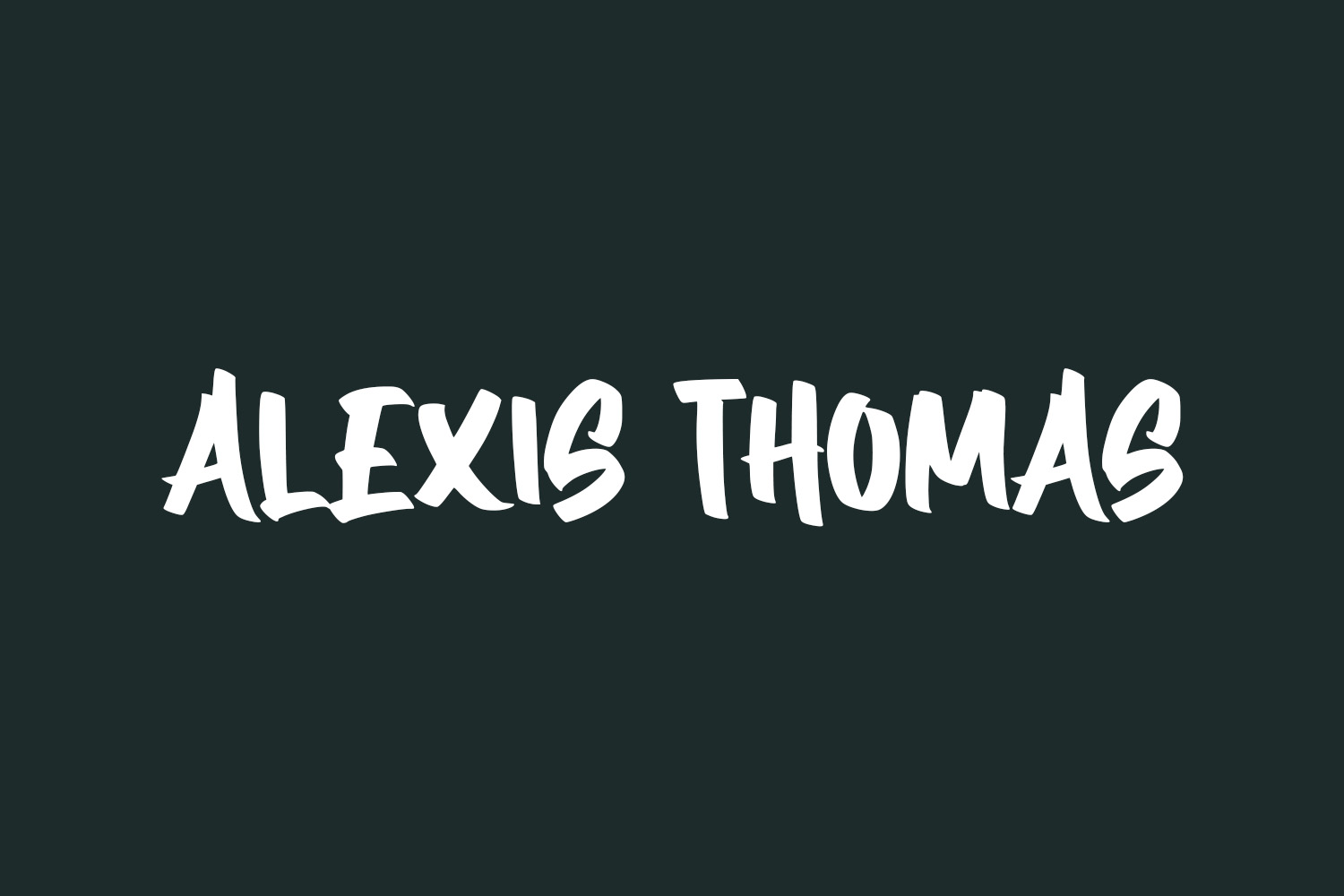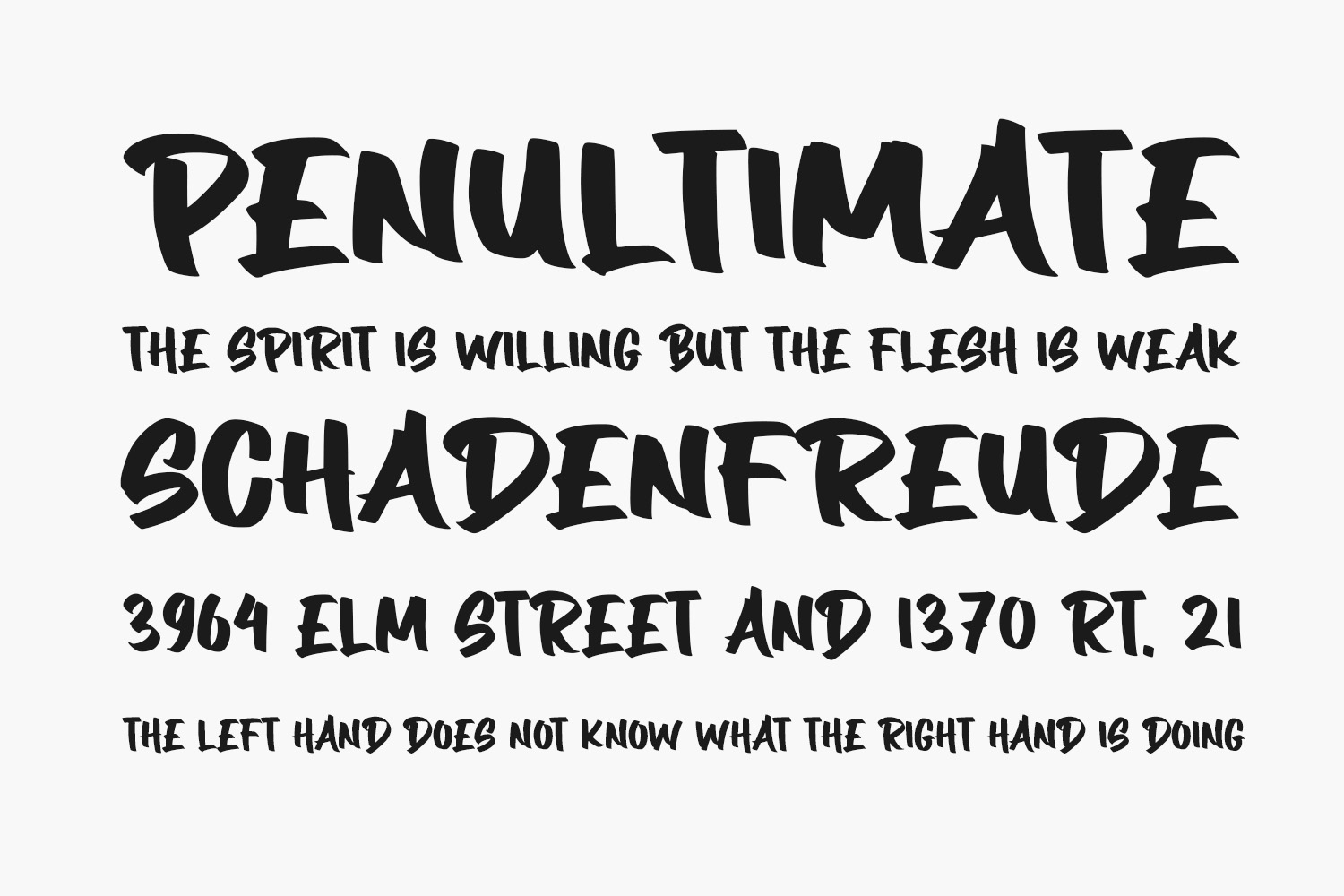
Alexis Thomas Free Font evokes feelings of playful freedom and creative expression. Its casual, paint-brushed display style adds a touch of whimsy to any design. This typeface is perfect for designing t-shirts, sportswear, logos, advertisements, clothing, and more. This font is perfect for those looking to add a unique, hand-crafted touch to their work. With its lively, carefree spirit, this typeface is sure to bring a smile to everyone’s face because captures the essence of a carefree and joyful spirit. So, let your imagination run wild and add this font to your next project for a touch of fun and creativity!
Designed by Creakokun Studio